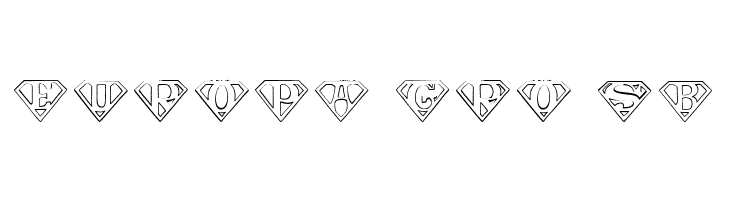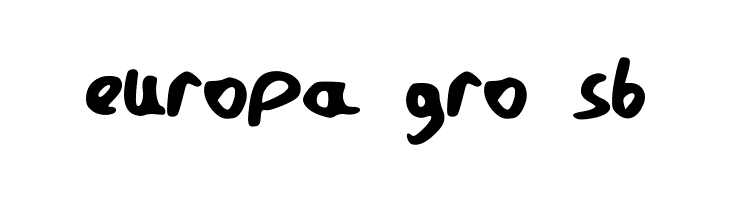
A bold, calligraphic font with a brush-like texture and expressive style.
A dynamic italic font with sharp angles and smooth curves, exuding elegance and motion.
A playful, eclectic font with a ransom note style, featuring diverse and dynamic characters.
A bold, geometric font inspired by ancient runic alphabets, perfect for mystical or historical themes.
A bold, gothic blackletter font with ornate detailing and sharp angles.
A bold, decorative font with artistic, swirling elements and intricate details.
A bold, superhero-themed font with diamond-shaped outlines and intricate line work.
An ornate gothic font with elaborate swirls and bold blackletter elements.
A bold, decorative font with intricate and artistic letterforms.
A whimsical, hand-drawn font with playful and dynamic letterforms.
An ornate, decorative font with intricate, floral designs ideal for elegant projects.
An ornate and decorative font with intricate swirls and flourishes.
A bold, hand-painted style font with expressive, uneven strokes.
A modern, clean sans-serif font with uniform stroke width and excellent readability.
A clean and modern sans-serif font with balanced spacing and consistent stroke width.
An elegant script font with intricate swashes and a calligraphic style.
A modern, geometric font with bold lines and rounded edges, perfect for futuristic designs.
A bold, decorative font with a three-dimensional, detailed design.
A bold, modern sans-serif font with clean lines and geometric structure.
A modern sans-serif font with smooth, rounded edges and uniform stroke width.
A bold, textured font with a distressed, grunge style.